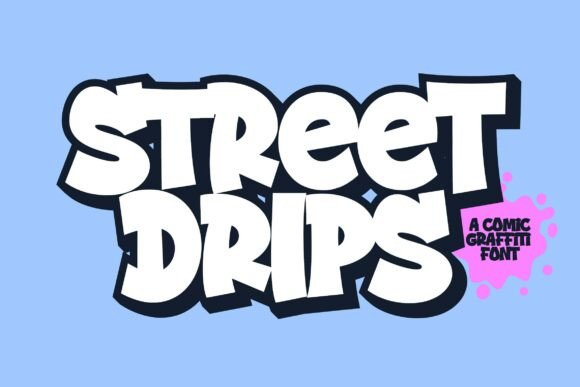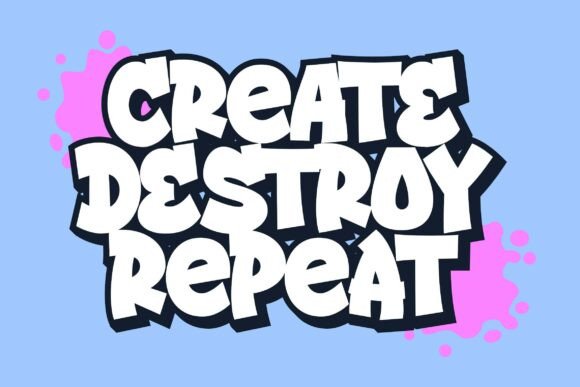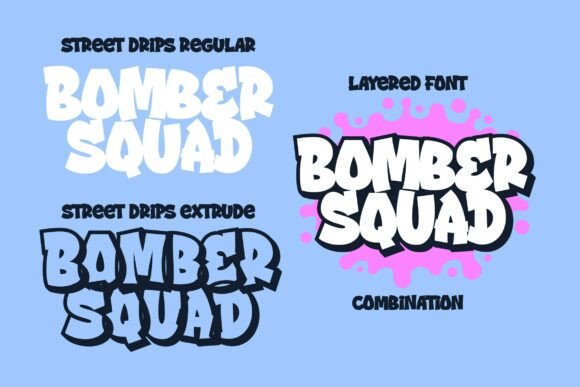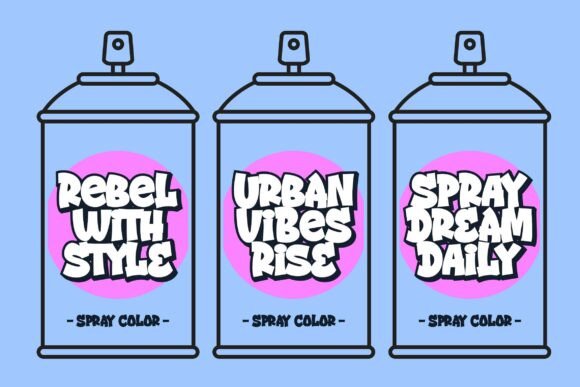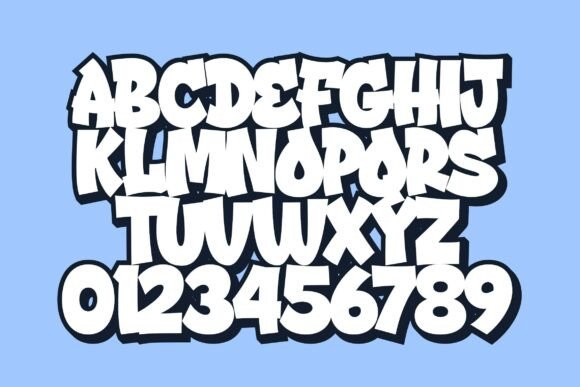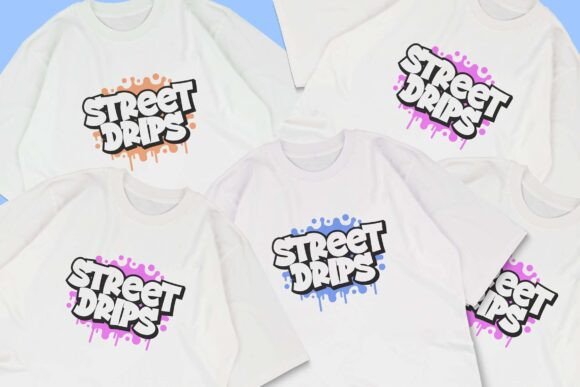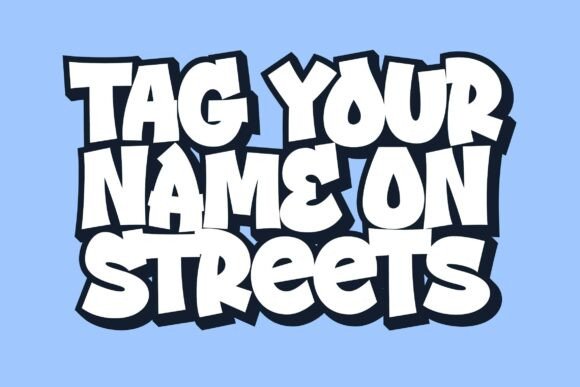
Street Drips is a bold and expressive graffiti cartoon font designed to bring urban energy to your creative projects. Perfect for logos, comics, posters, product packaging, branding, and promotional materials, this font delivers an edgy street-art vibe with every character.
Featuring two styles—Regular and Extrude—Street Drips offers dynamic versatility for standout designs. It includes a complete set of uppercase and lowercase graffiti-style letters, numbers, and punctuation.